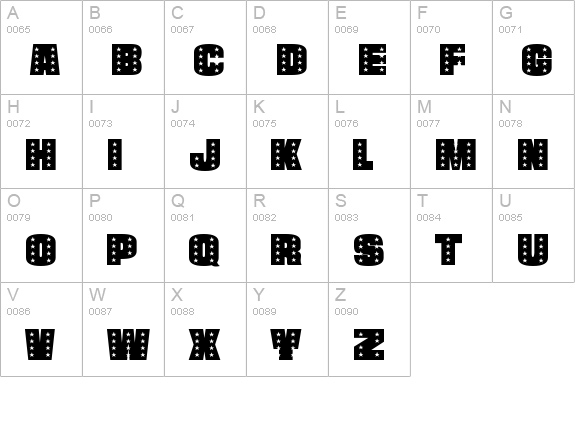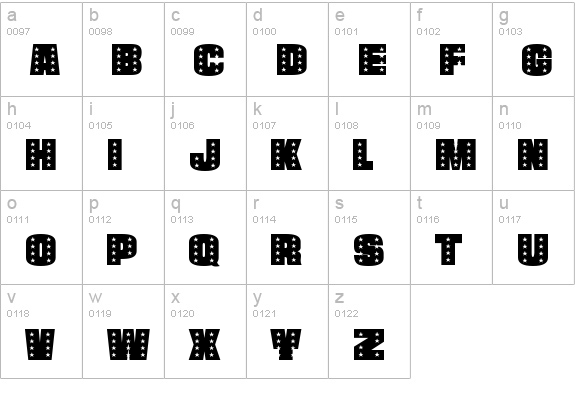
StarsCapsHeavy Font Details
StarsCapsHeavy is a captivating and bold font that truly makes a statement. Its strong and commanding presence is perfect for headlines, titles, logos, and any design project that requires a touch of grandeur. This typeface features an intricate and elaborate design, with each letter adorned with stars, giving it a celestial and celestial-inspired aesthetic. With its heavy weight and pronounced strokes, StarsCapsHeavy demands attention and exudes confidence. Its unique and eye-catching appearance sets it apart from traditional fonts, making it a perfect choice for those who want to make a bold and memorable impression. One of the best things about StarsCapsHeavy is that it is available for free download at FontsMarket.com. This means that you can easily access and use this stunning font in your projects without any cost. Whether you are a professional designer or a hobbyist, StarsCapsHeavy offers you the opportunity to add a touch of elegance and sophistication to your creations at no expense. So, don't miss out on the chance to enhance your designs with the powerful and awe-inspiring StarsCapsHeavy font. Download it for free at FontsMarket.com and elevate your projects to new heights with this remarkable typeface.